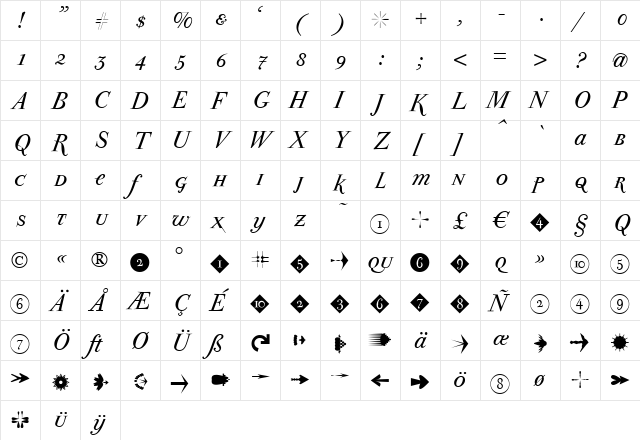
ParmaPetitSCItalic Regular
Design Context for ParmaPetitSCItalic Typeface
ParmaPetitSCItalic takes a measured approach to typography — its balanced proportions and neutral character make it a reliable workhorse for both digital and print work. Its italic angle brings a sense of urgency and motion to the letterforms.
Pro Tip: Try ParmaPetitSCItalic for annotation and caption copy alongside an upright companion — the contrast in angle creates a dynamic but ordered typographic system.